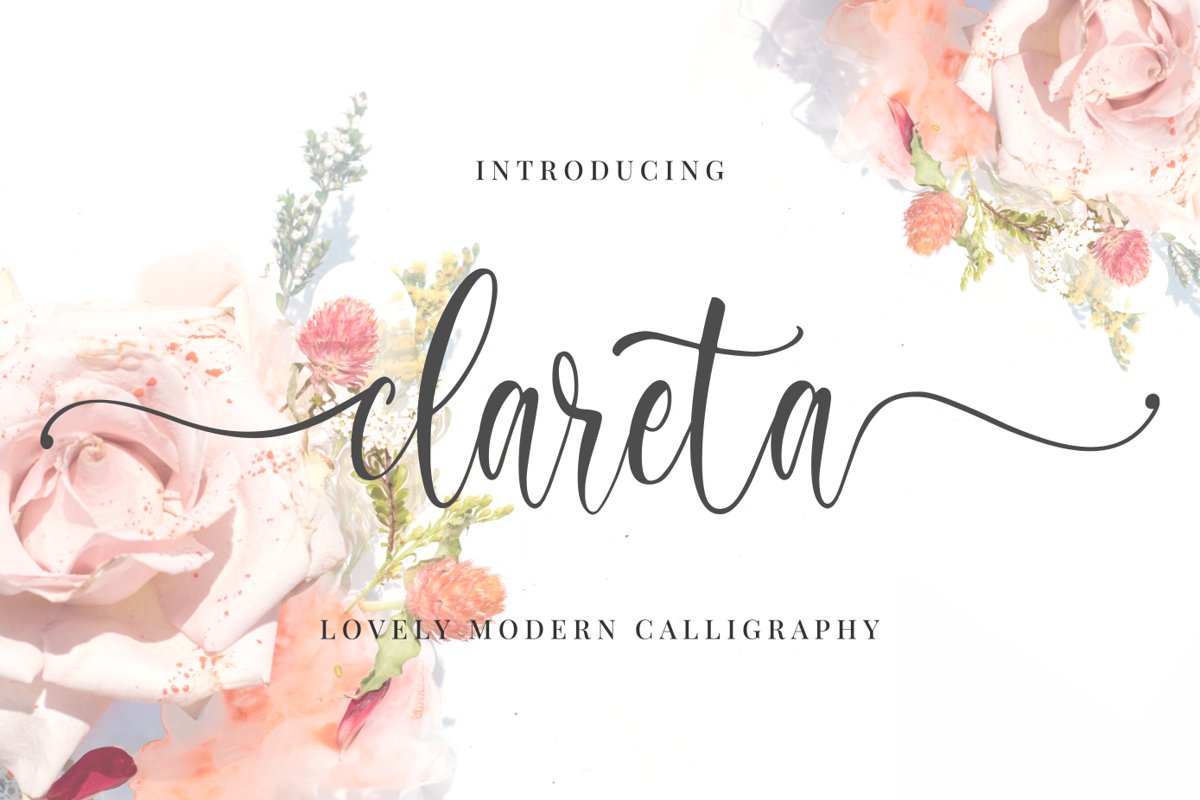
Clareta
Clareta is lovely modern calligraphy font, This is a beautiful combination of timeless elegance and authentic calligraphy. It features a varying baseline, smooth lines, gorgeous glyphs and stunning alternates.
It will elevate a wide range of design projects to the highest level, be it branding, headings, wedding designs, invitations, signatures, logos, labels, and much more!